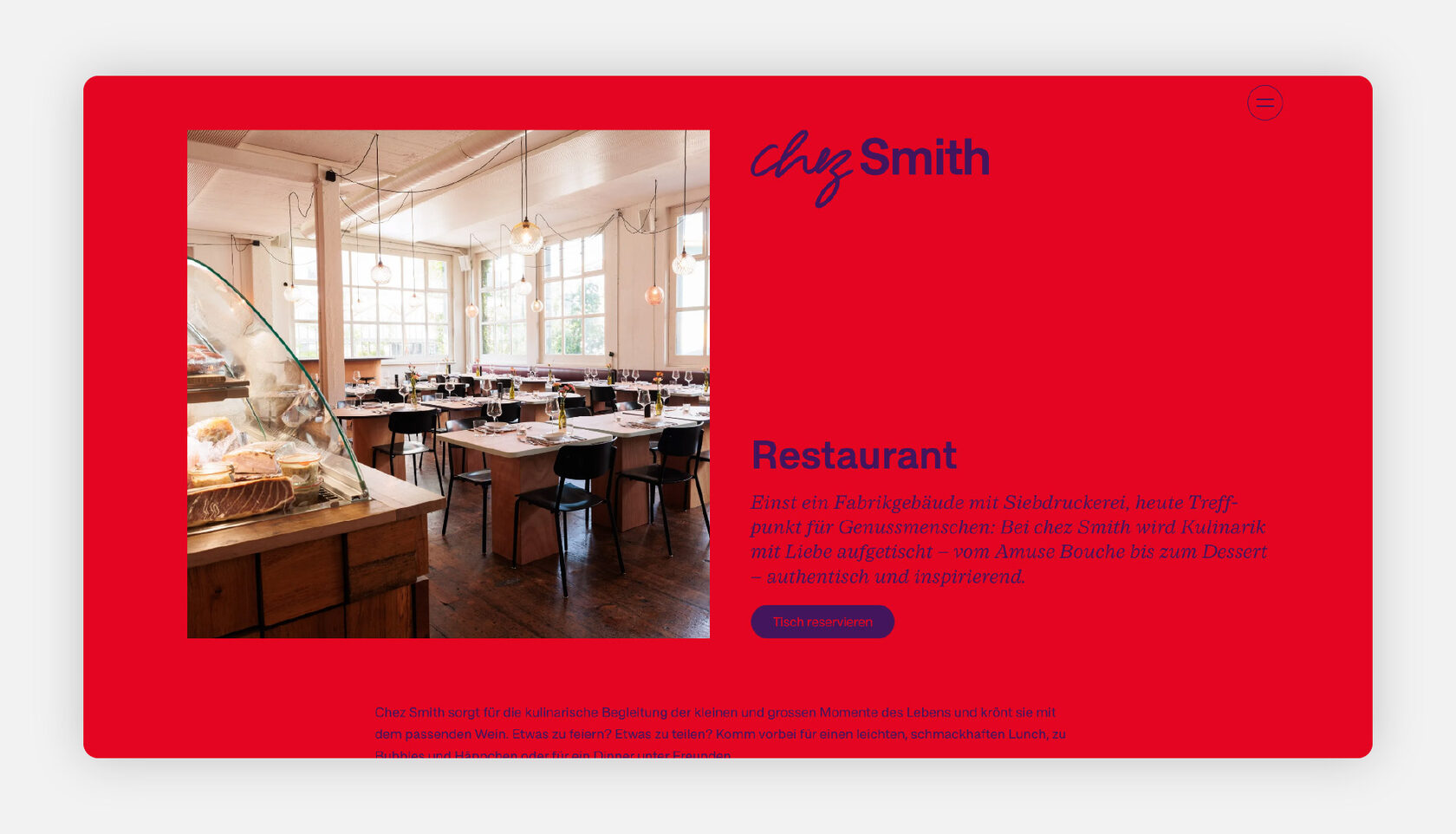
Chez Smith — Wine Bar and Restaurant in Zürich
Font: SFT Schrifted Serif (Text Italic).
Use case: Website typography, brand identity, menu typography.
About the Project:
Chez Smith is a wine bar and restaurant in Zürich’s Binz district, known for its market-fresh cuisine and curated wine selection. Their website and menu typography pair SFT Schrifted Serif with Approach, balancing classic elegance with contemporary clarity. SFT Schrifted Serif Text Italic is used in introductory texts, adding a welcoming and refined tone, while in the menu, it highlights dish names and prices, enhancing readability and visual appeal.
Why SFT Schrifted Serif?
For a hospitality brand that values tradition and modernity, typography plays a key role. SFT Schrifted Serif brings a sophisticated, warm character, perfect for storytelling and elegant presentation. Its italic style adds personality, distinguishing key information, while Aribau Grotesk ensures clean, structured readability for descriptions. Together, they create a cohesive and inviting brand identity, mirroring the relaxed yet refined atmosphere of chez Smith.